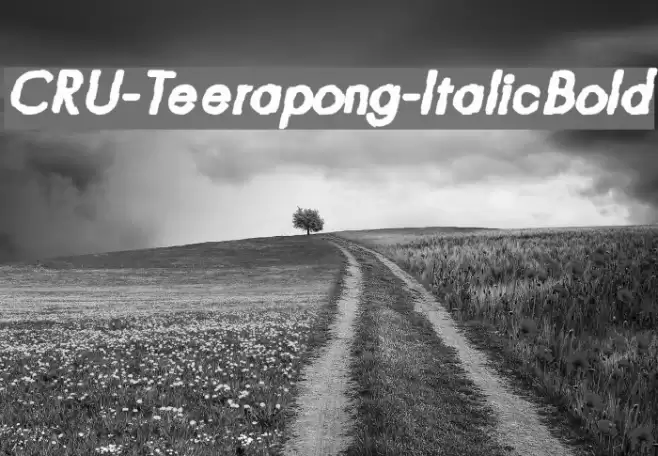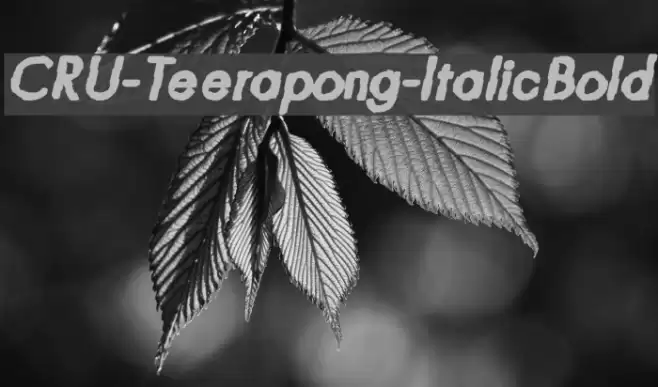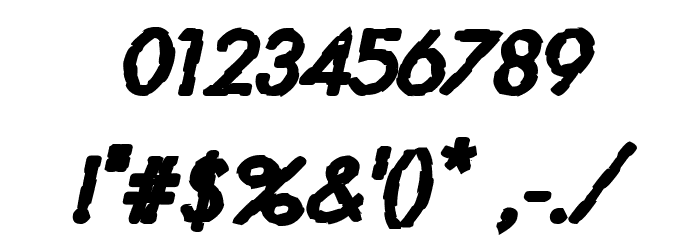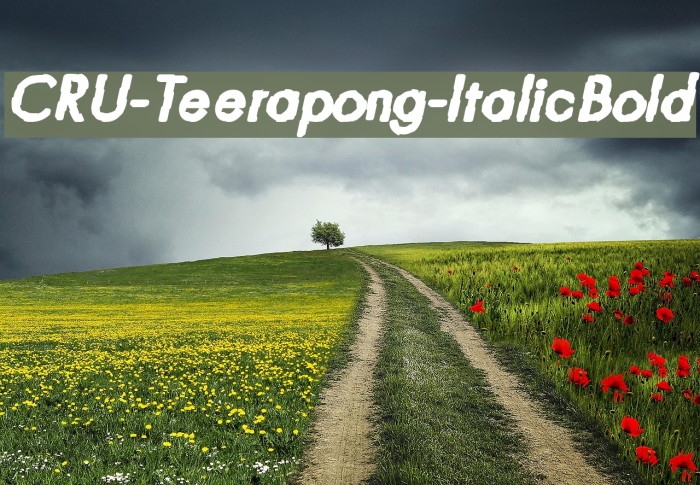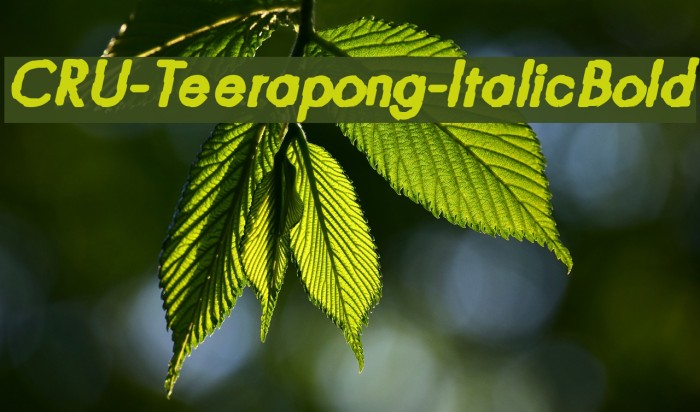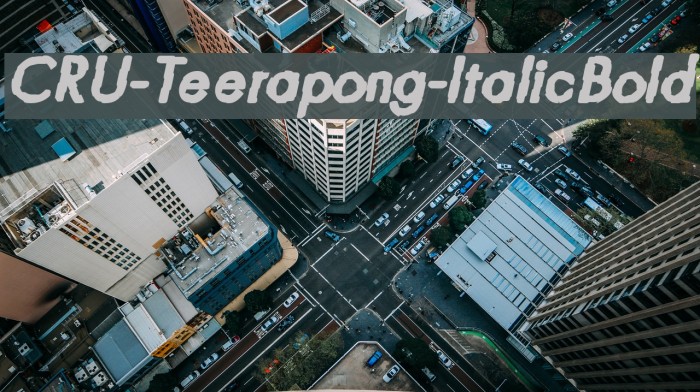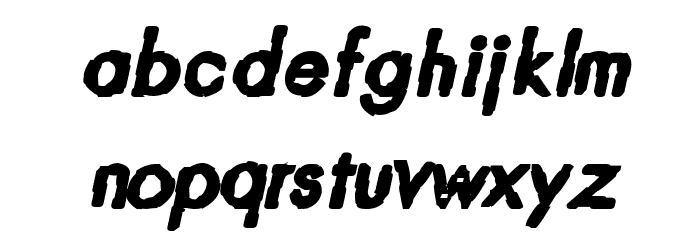
CRU-Teerapong-ItalicBold Font
CRU-Teerapong-ItalicBold Description
This font features a bold and italic style with a handwritten appearance, giving it a dynamic and energetic feel. The characters are slightly slanted, enhancing the italic effect, and the bold weight adds a strong presence. The strokes are uneven, mimicking a casual, hand-drawn look, which adds a personal touch to the text. The font maintains good legibility despite its decorative style, making it suitable for various creative applications. The character spacing is normal, ensuring readability while maintaining its unique aesthetic.
A bold, italic, handwritten-style font with a dynamic and energetic appearance from Uncategorized fonts.
- Proposed Projects: Ideal for creative projects such as greeting cards, posters, branding materials, and social media graphics.